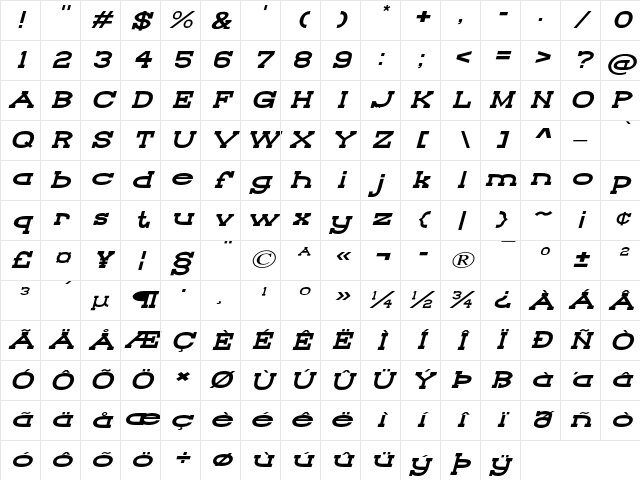
Range Rider Expanded Italic
Style: Expanded Italic
Range Rider Family
Range Rider Expanded Italic
Design Context for Range Rider
Range Rider is a composed and adaptable typeface that performs quietly and consistently across a wide range of design contexts. The slanted form adds forward momentum and visual energy.